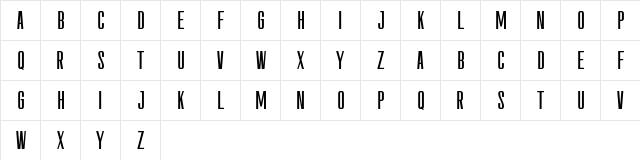
The Fourth Avenue Sans Regular
| Foundry | MERCURIAL |
| Designer | Salt Mercurial |
Design Context for The Fourth Avenue Sans Typeface
The Fourth Avenue Sans is a composed and adaptable typeface that performs quietly and consistently across a wide range of design contexts.